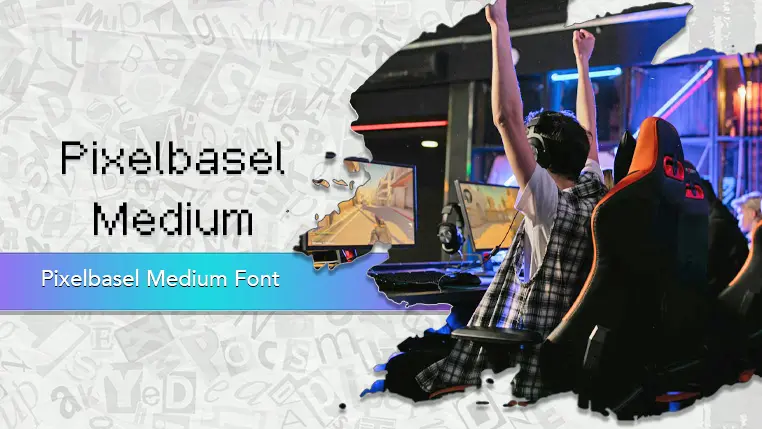
The Pixelbasel font family may be ideal for you if you enjoy working on an artistic design project. The lively, expressive look of this typeface, which was created by GGBotNet, makes it ideal for It's perfect for game titles, UI elements, dialogue boxes, and score displays in retro-style games, particularly those with a pixel art aesthetic. Social Media Graphics to make posts stand out with a distinct digital or gaming feel, Also you can use on Educational Content (tech/coding related) that should be engaging for materials related to computer science, coding, or the history of technology. and other light-hearted visual projects.
Medium are the one primary font styles of the Pixelbasel font family. You may build dynamic, visually appealing text layouts with the distinct flair that each style offers. With crisp, readable lines and a relaxed tone.